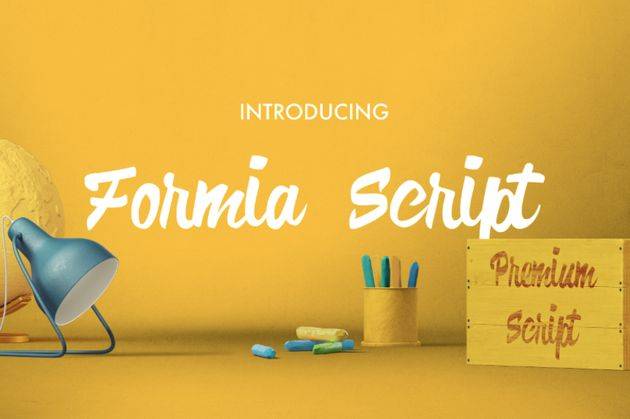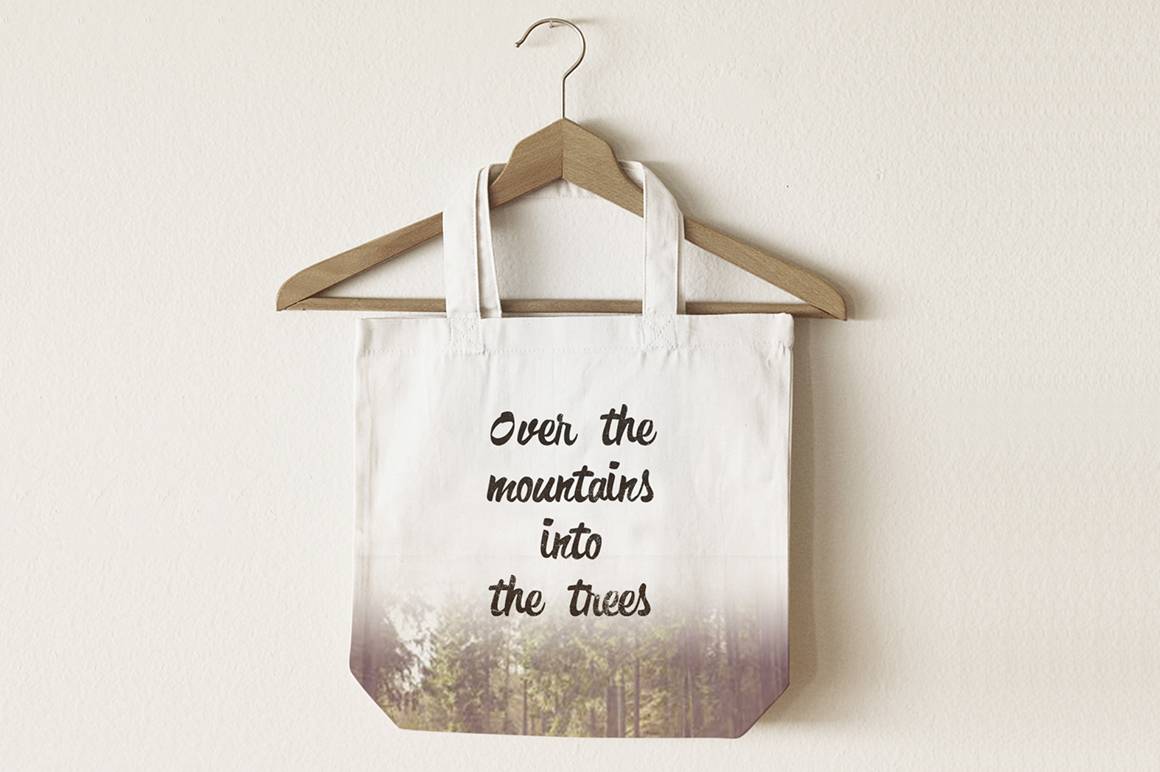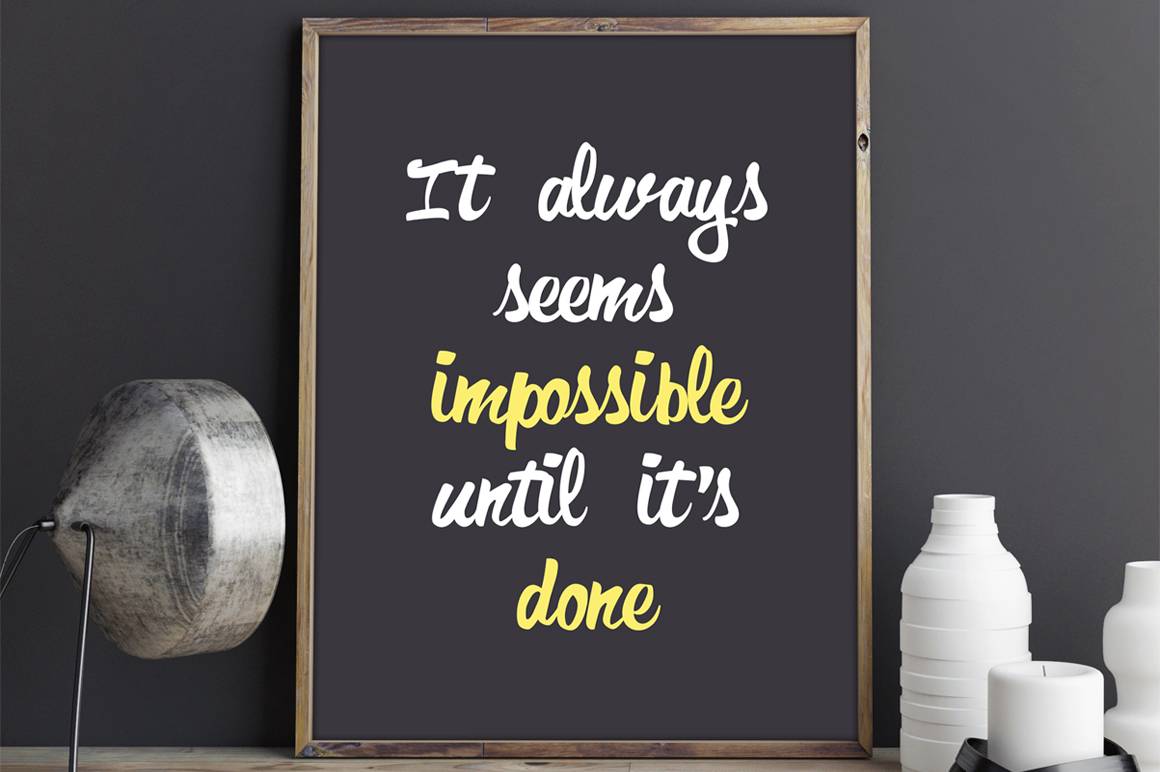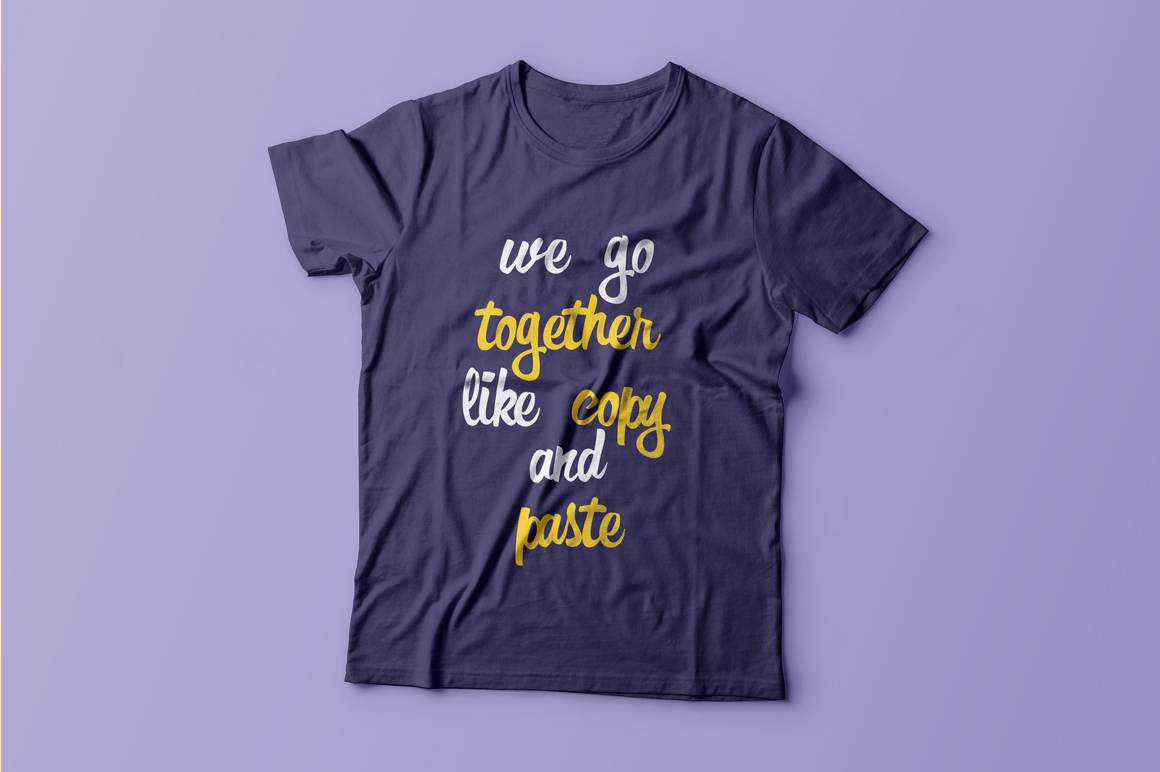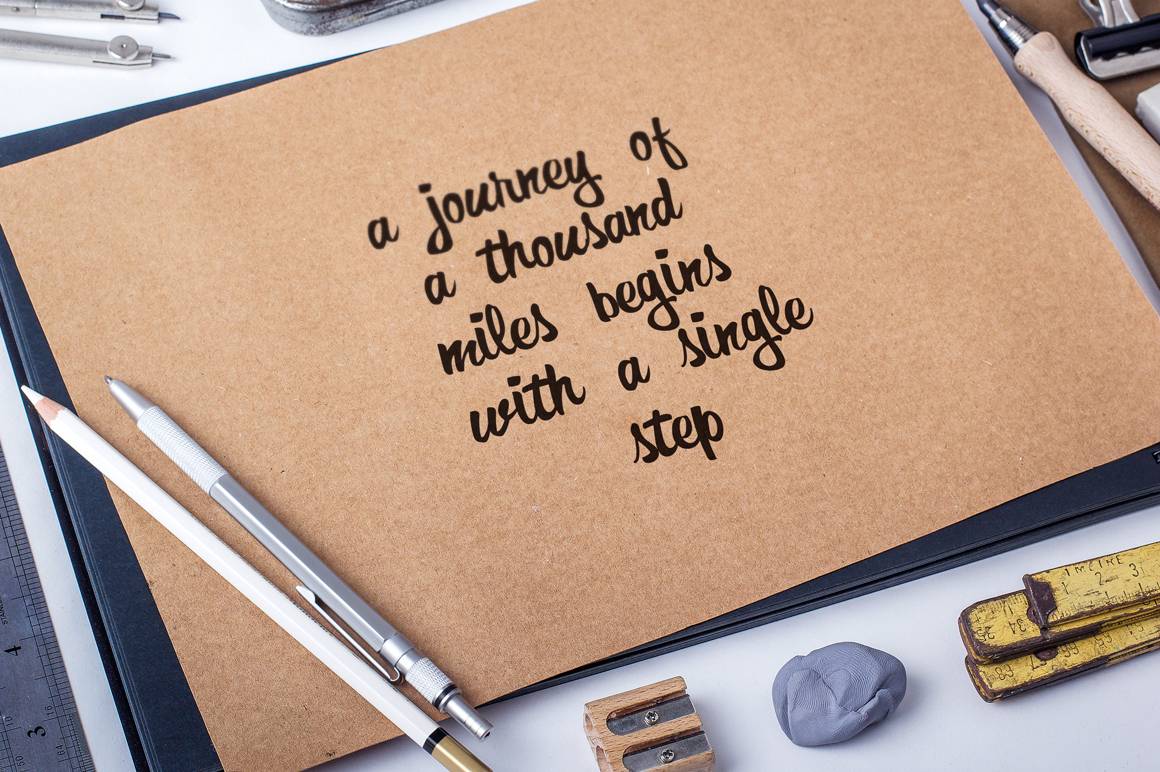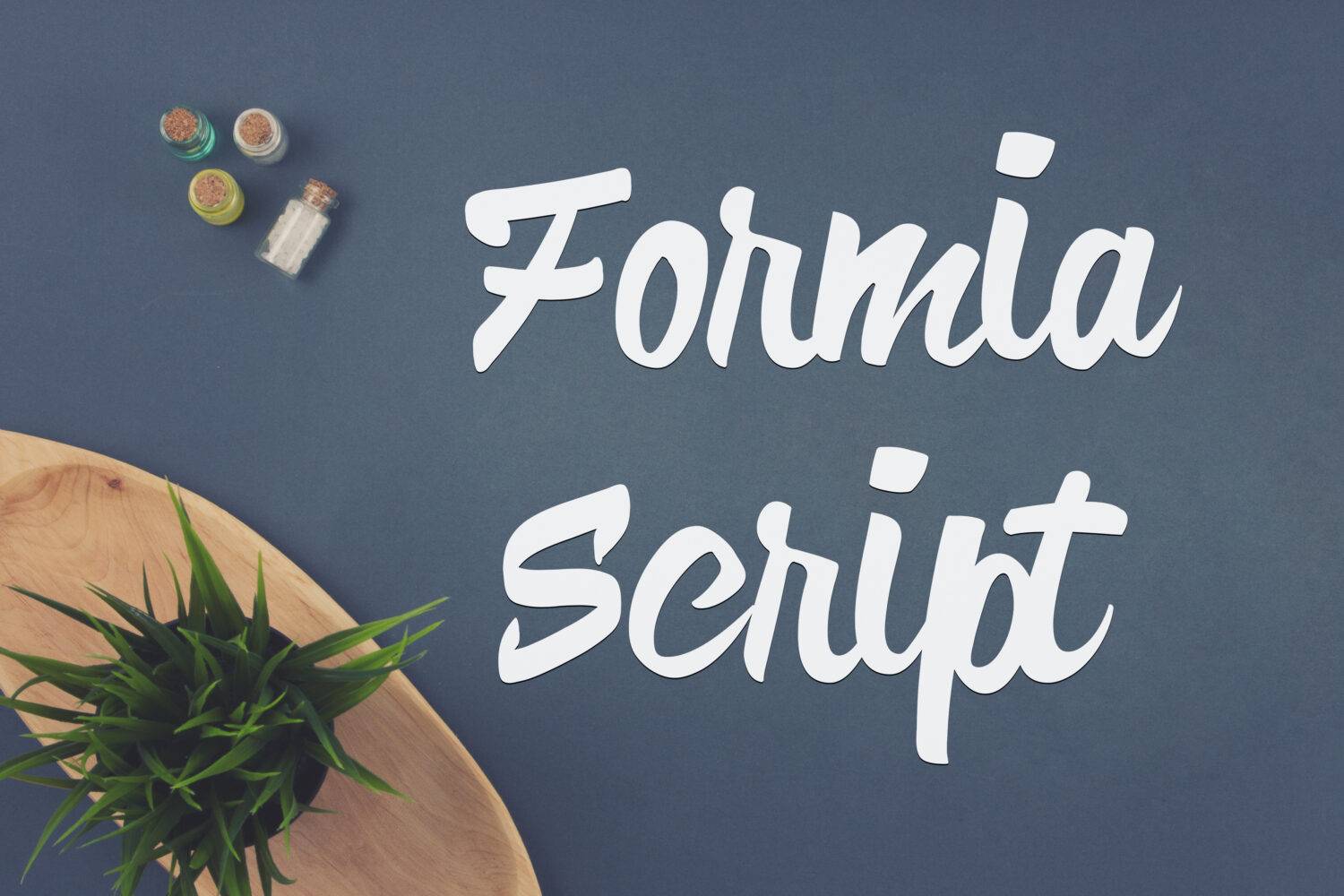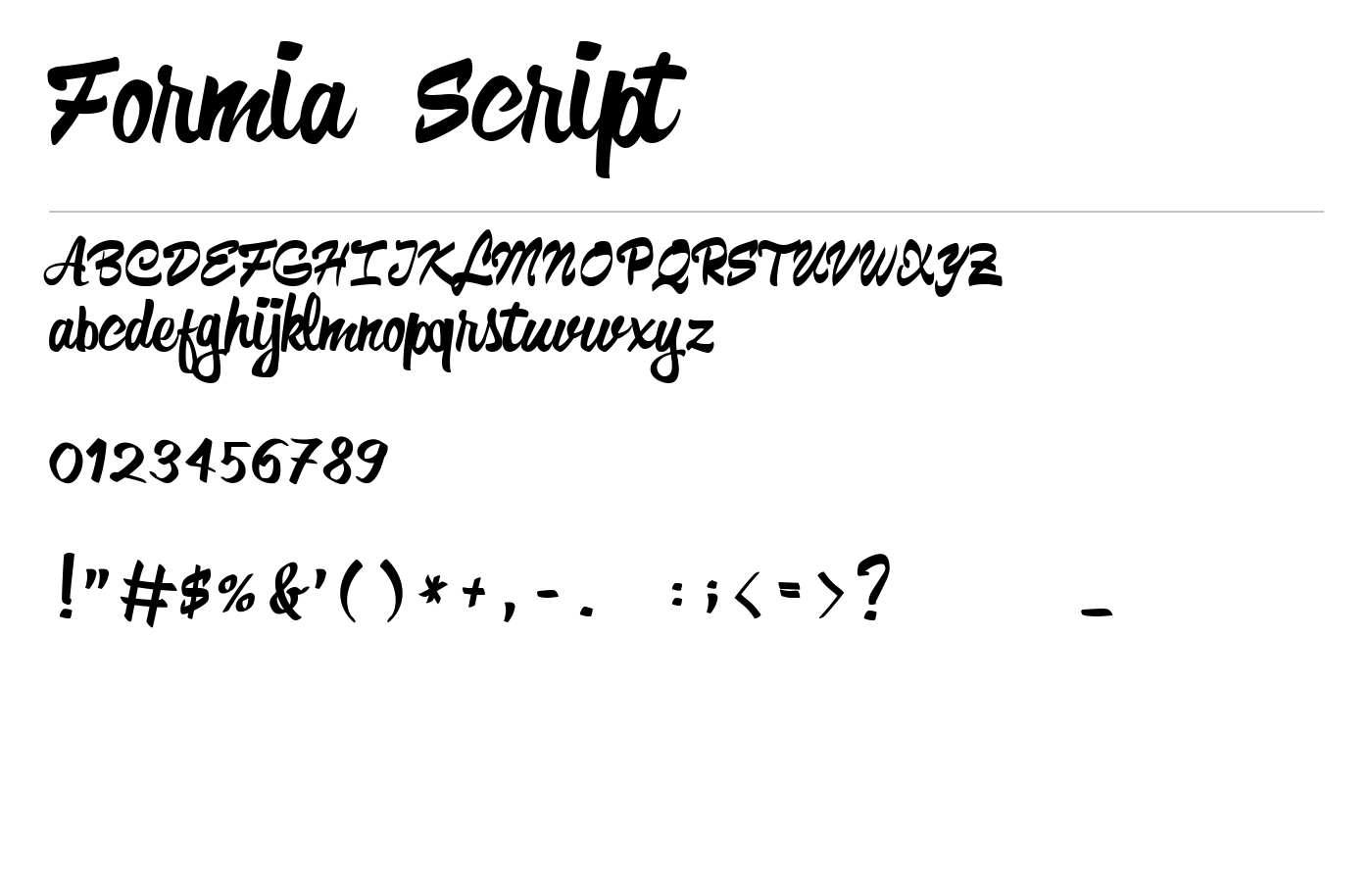
Formia Script is a lively and bold script font that combines a casual handwritten feel with strong, confident strokes. Its moderately condensed letterforms and smooth, slightly angled connections give it an energetic yet approachable personality, making it perfect for branding, packaging, and headlines that seek a friendly yet stylish touch. This font’s clear readability and distinctive style work well for creative projects that want to convey warmth and originality.
Formia Script Font
About Formia Script Font